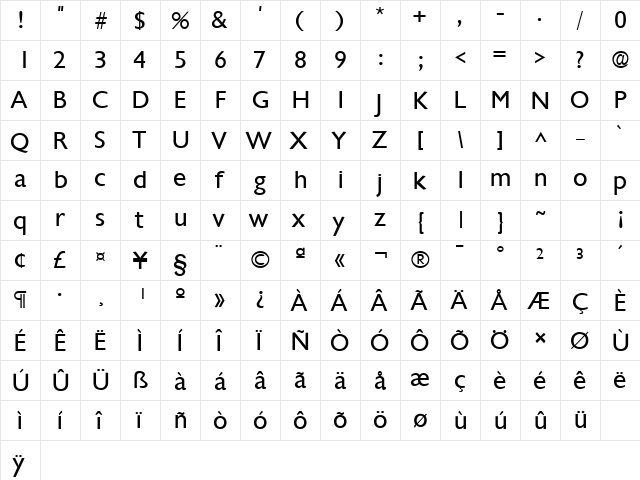
Chantilly Regular
Design Context for Chantilly Typeface
Chantilly offers clean, dependable letterforms without strong stylistic allegiance, making it a practical choice for designers who need flexibility.
Pro Tip: Use Chantilly in both headline and body roles to test its range before committing to a single application.